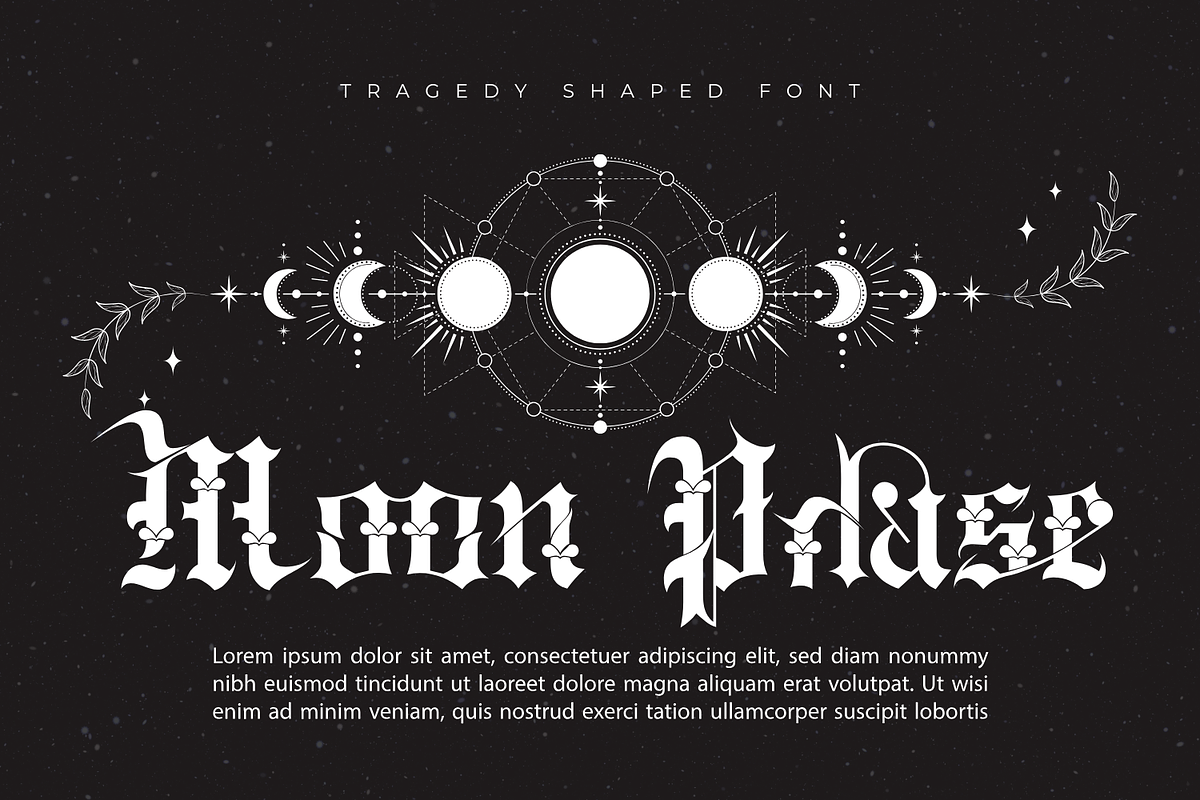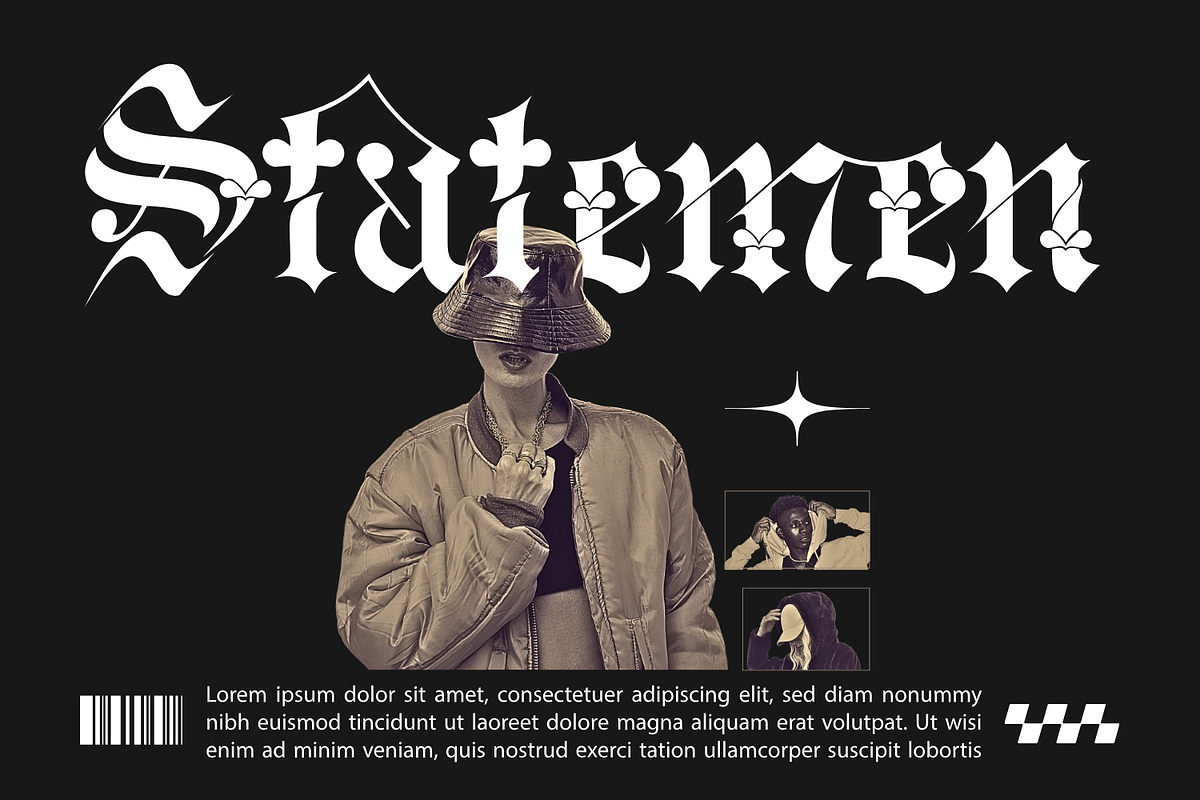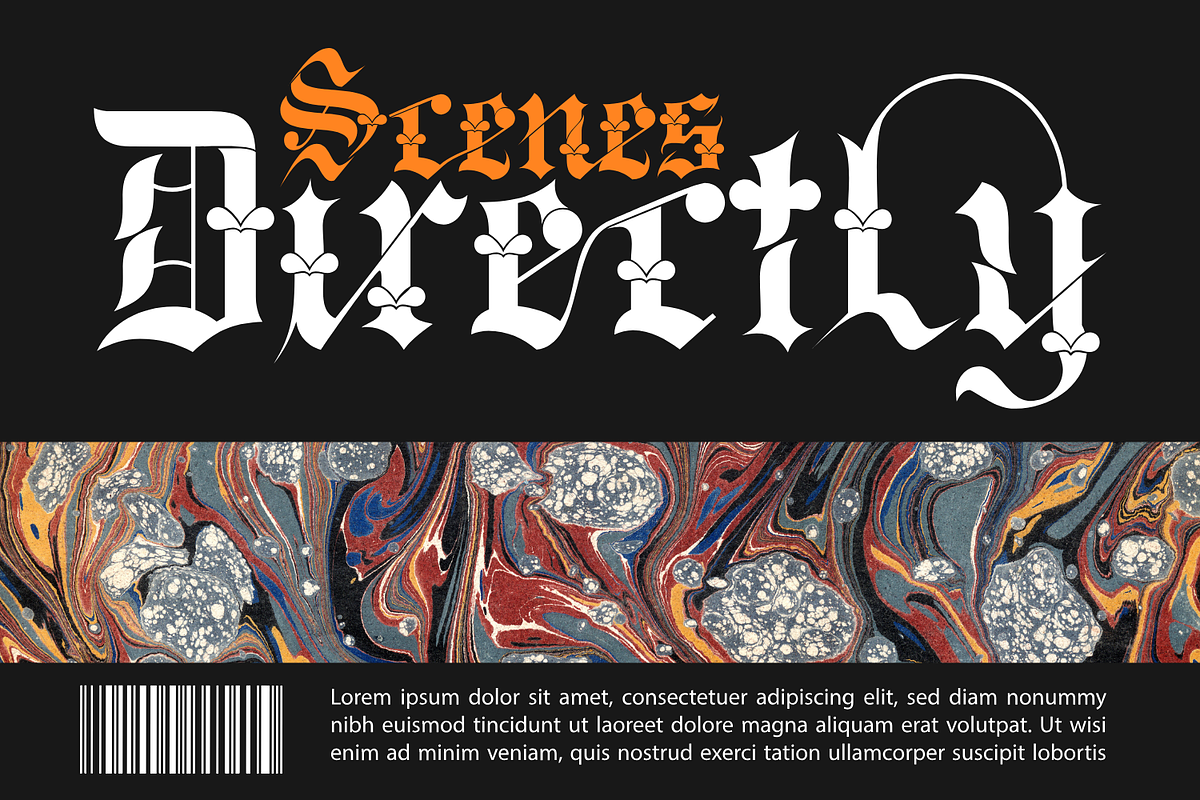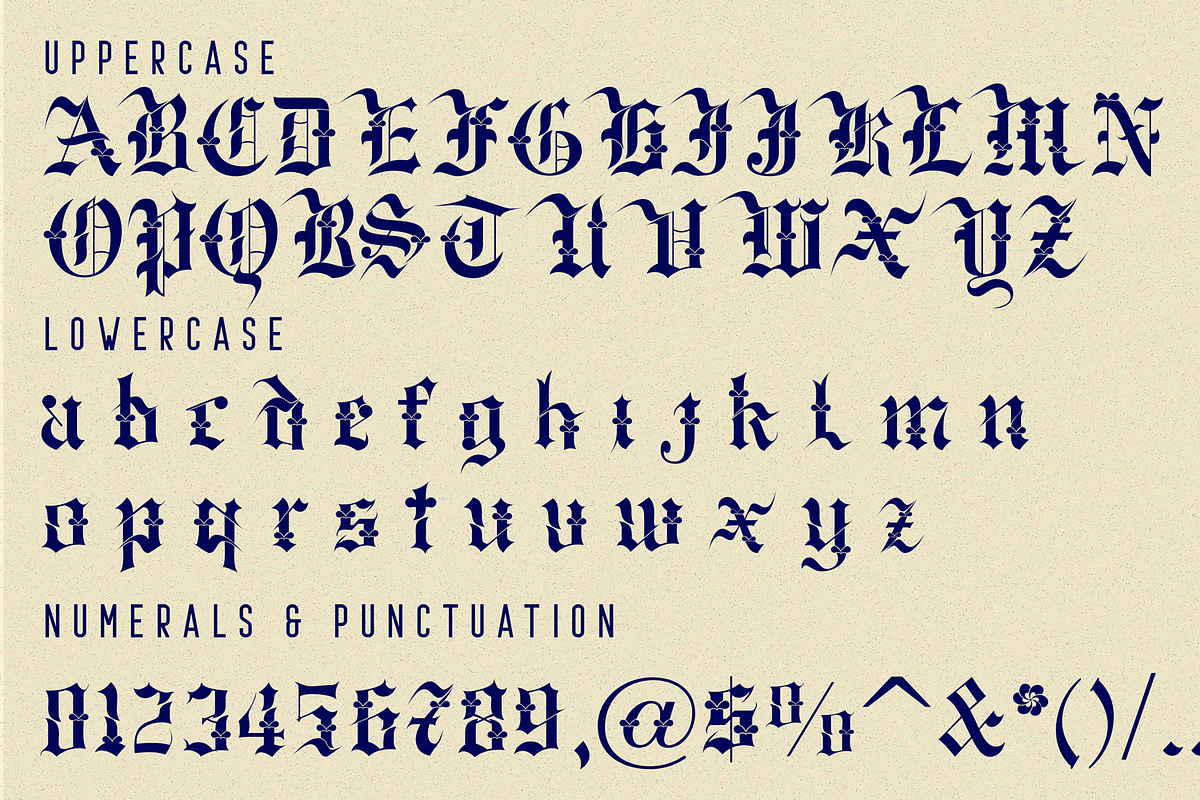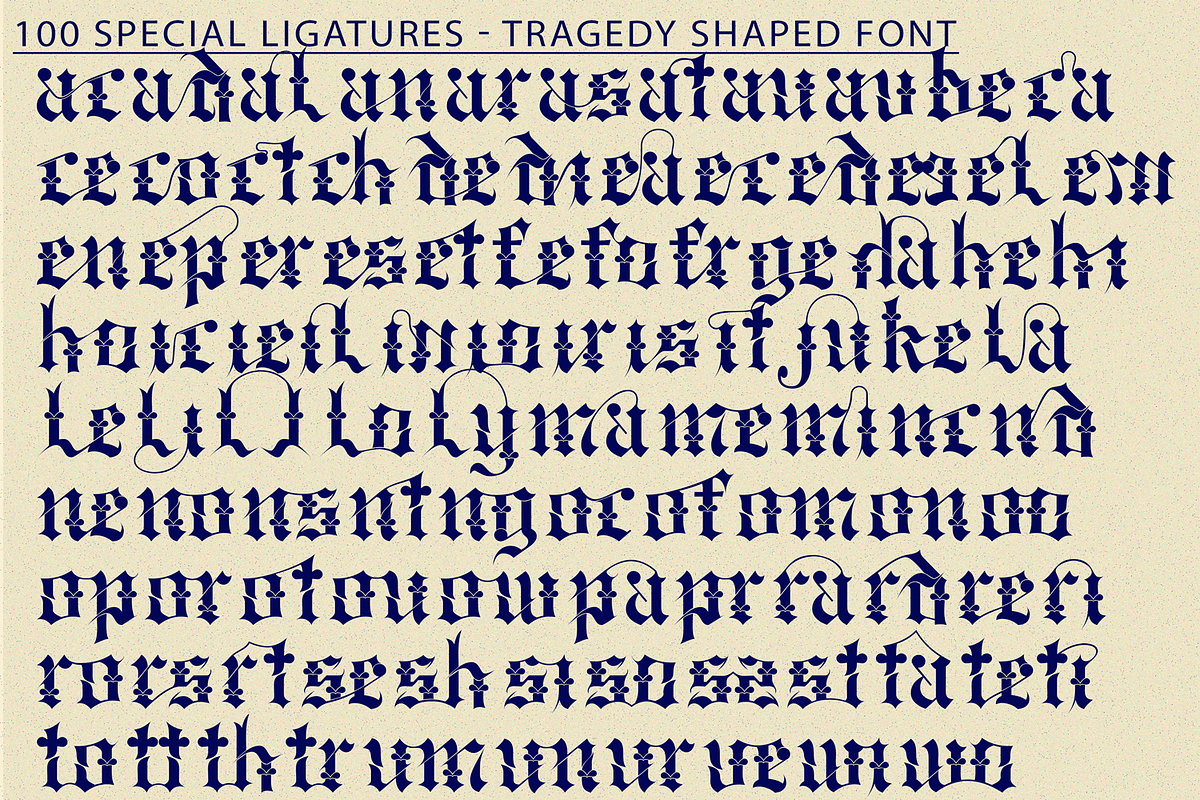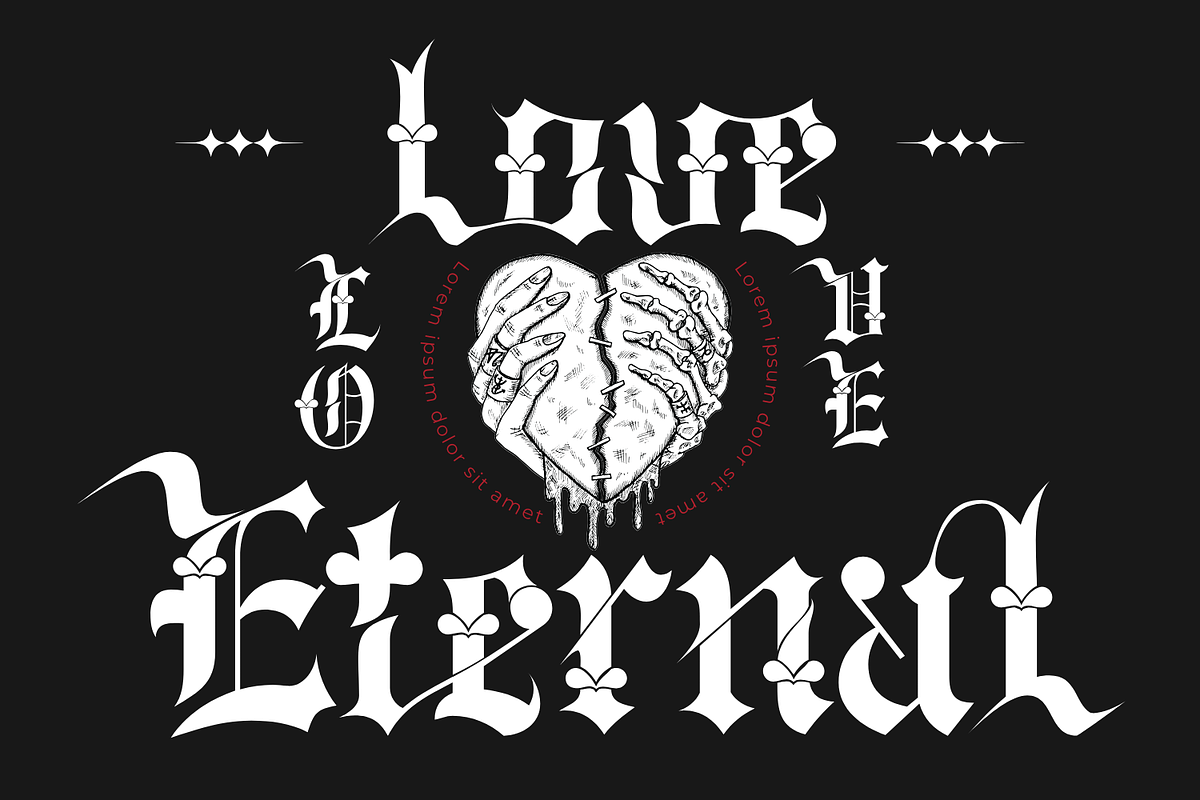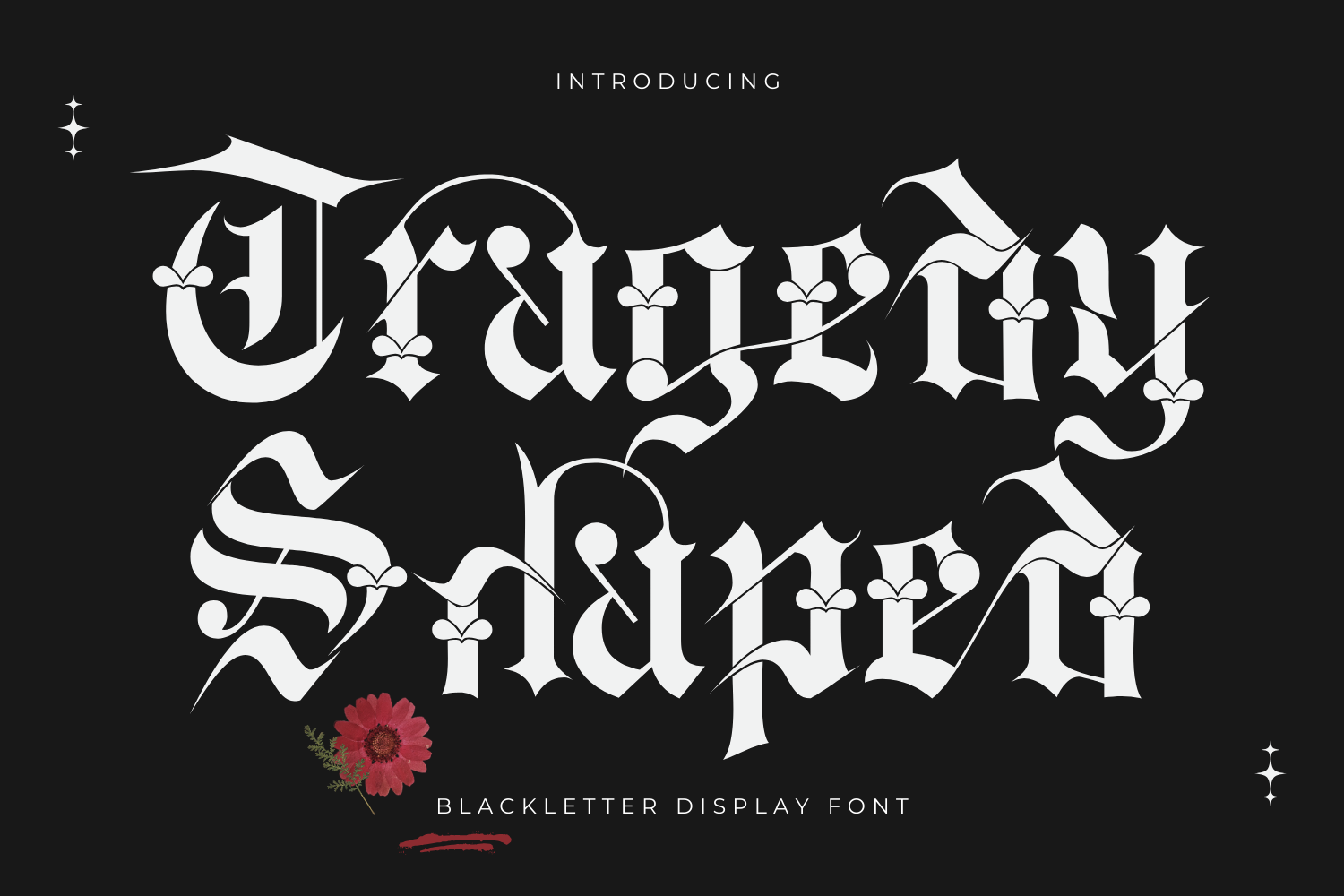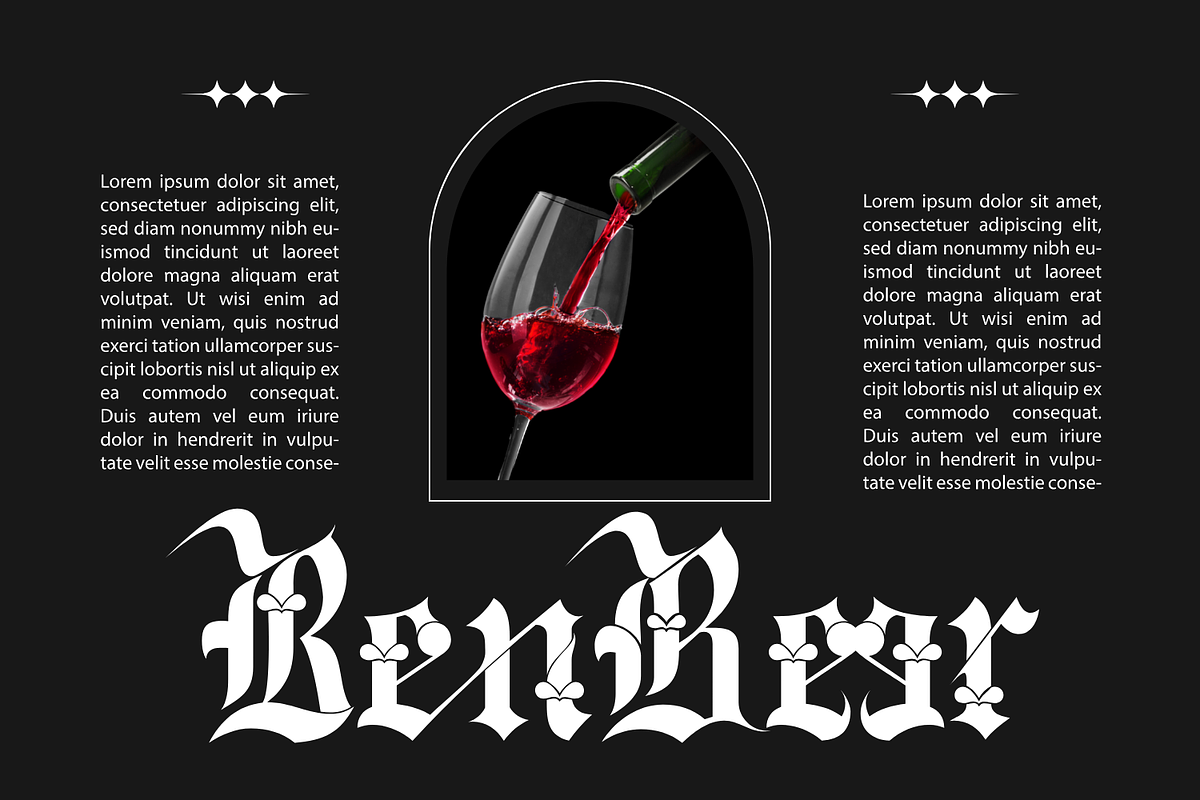
Tragedy Shaped | Blackletter Font
Tragedy Shaped Font – A Unique & Decorative Blackletter Typeface
Tragedy Shaped is a bold and artistic blackletter typeface designed to bring a touch of uniqueness and sophistication to your projects. With its intricate details and decorative flair, this font is perfect for vintage-inspired designs, branding, posters, book covers, and more.
✔ Uppercase & Lowercase Letters – Crafted with precision and elegance.
✔ 100+ Special Ligatures – Enhancing the flow and aesthetics of your typography.
✔ Numerals & Punctuation – A complete set for versatile usage.
✔ Accented Characters – Supporting multiple languages.
Whether you're creating gothic-style artwork, eye-catching headlines, or elegant invitations, Tragedy Shaped will give your designs an unmistakable character and timeless appeal.
🔹 Unleash the power of blackletter with Tragedy Shaped! 🔹
Tragedy Shaped was built with OpenType features and includes 100 ligatures, alternate, numbers, punctuation, and it also supports other languages.
ac ad al an ar as at au av be ca ce ch co ct de di ea ec ed ee el em en ep er es et fe fo fr ge ha he hi ho ie ic il in io ir is it ju ke la le li ll lo ly ma me mi nc nd ne ng no nt ns oc of om on oo op or ot ou ow pa pr ra rd re ri ro rs rt se sh si so ss st ta te th ti to tr tt um un ur ve wi wo